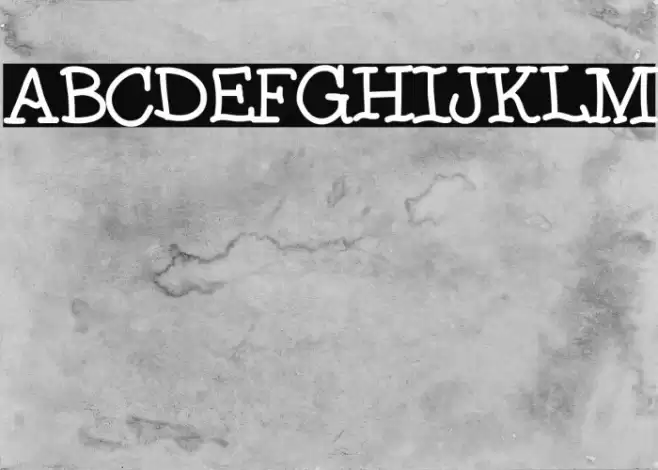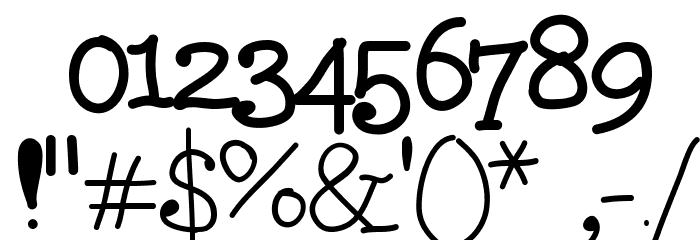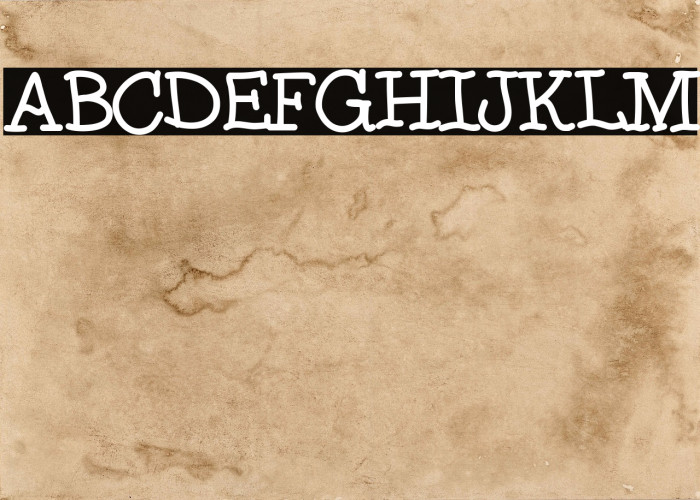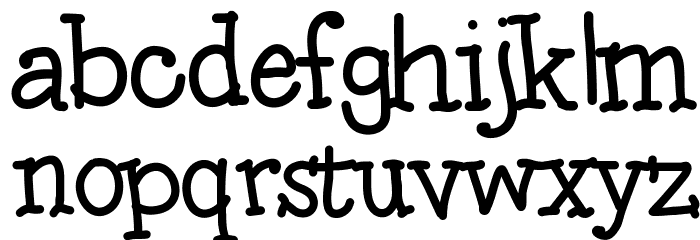
Squishy Font
Squishy Description
This playful and whimsical font features a hand-drawn style with irregular, slightly wavy lines that give it a casual and friendly appearance. The characters are bold and rounded, with a consistent stroke width that adds to its approachable feel. The uppercase and lowercase letters maintain a uniform height, while the numbers and special characters are designed to match the overall playful aesthetic. This font is perfect for projects that require a fun and informal touch, such as children's books, greeting cards, or playful branding.
A playful, hand-drawn font with bold, rounded characters and a whimsical style from Uncategorized fonts.
- Proposed Projects: Ideal for children's books, greeting cards, playful branding, and informal invitations.
- Overall Style: Playful
- Use Case: Headlines, Logos, Informal Text